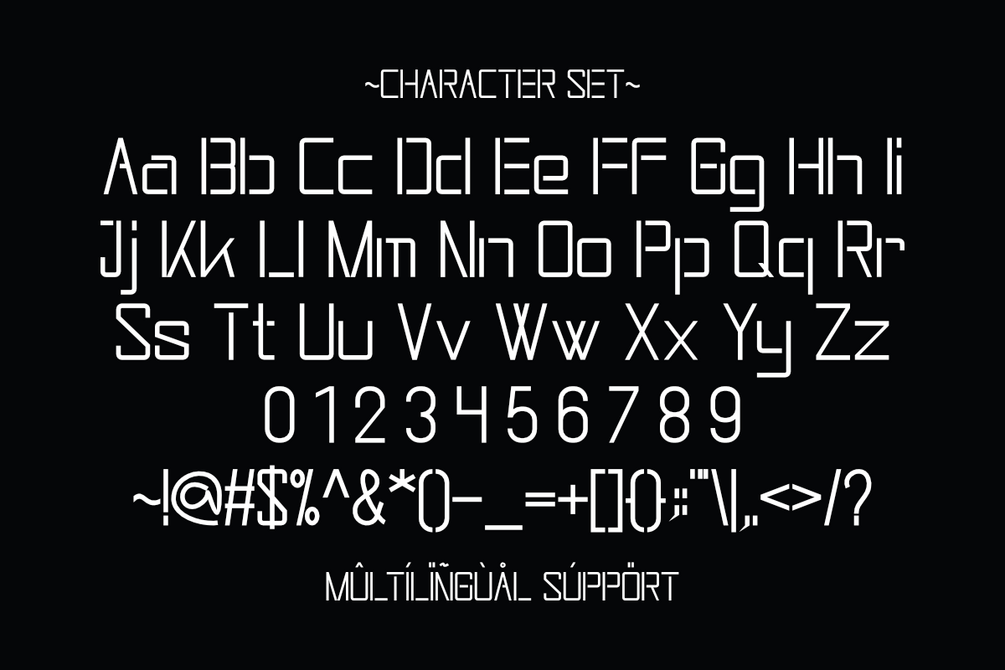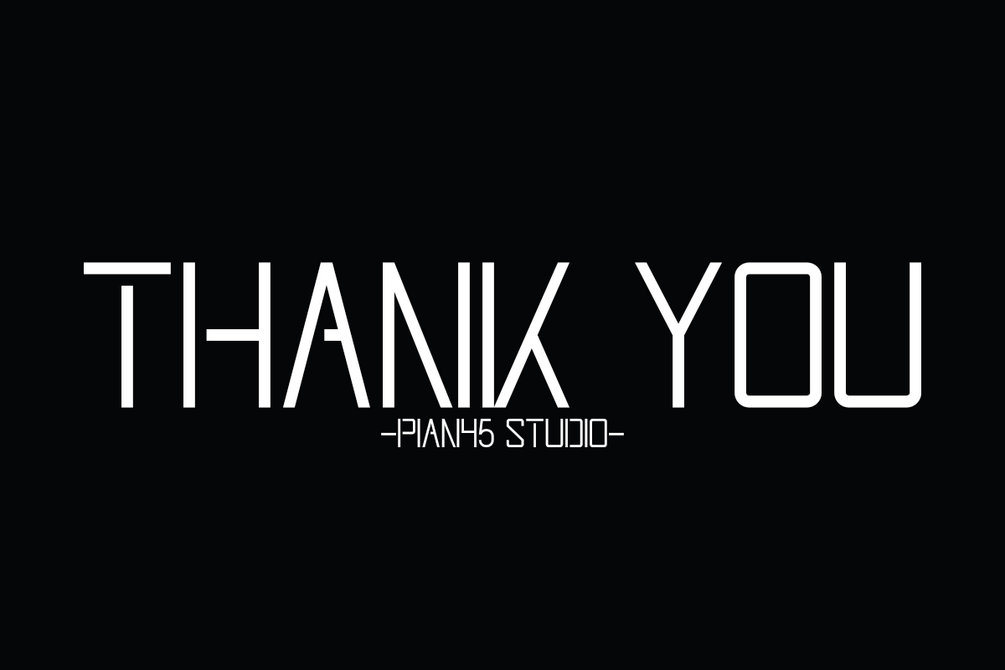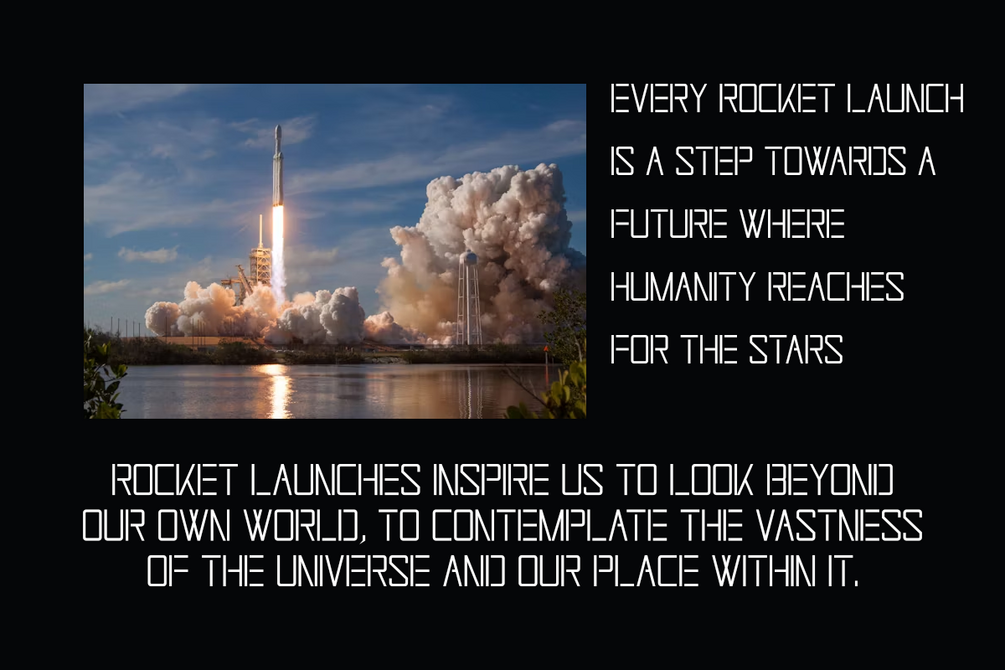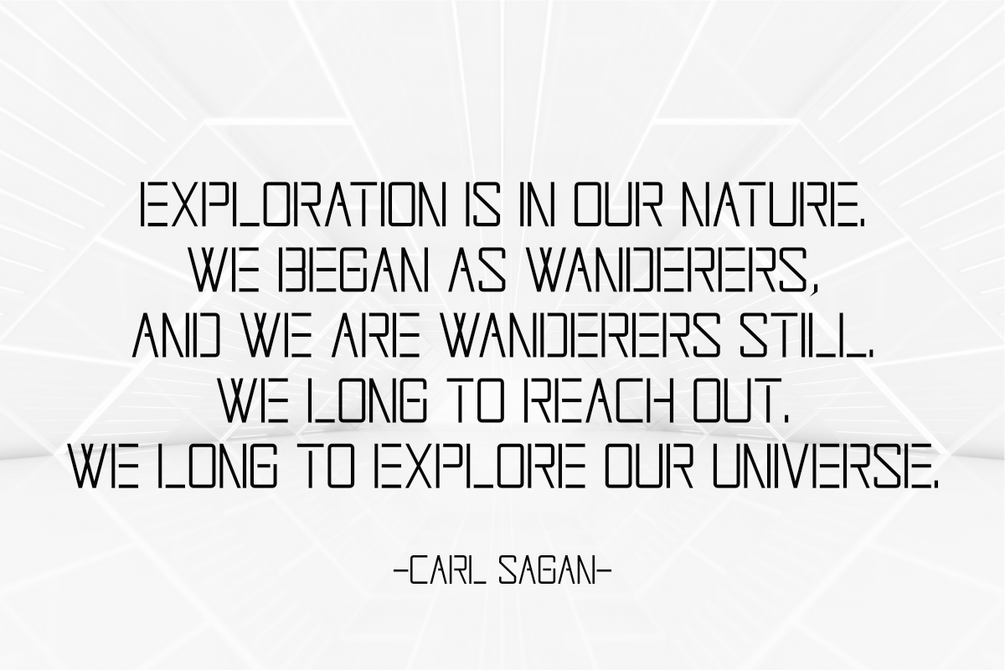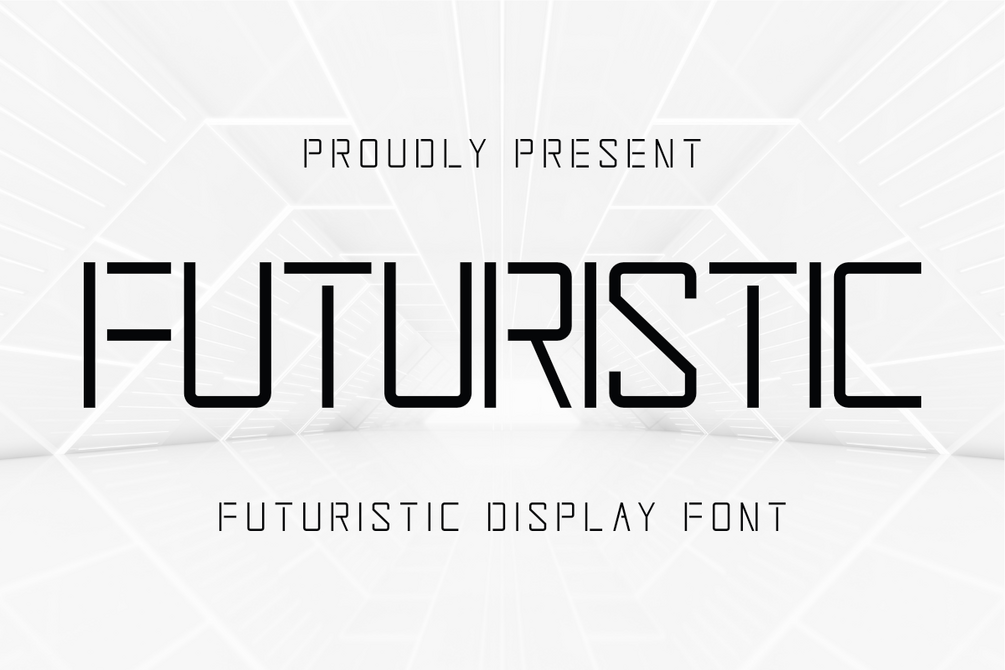
Futuristic - Display Font
Futuristic is a futuristic display font that embodies modern, minimalist, and space-inspired design.
With its clean lines and sleek aesthetic, it brings a contemporary and futuristic touch to any project.
Perfect for designs that demand a cutting-edge look.